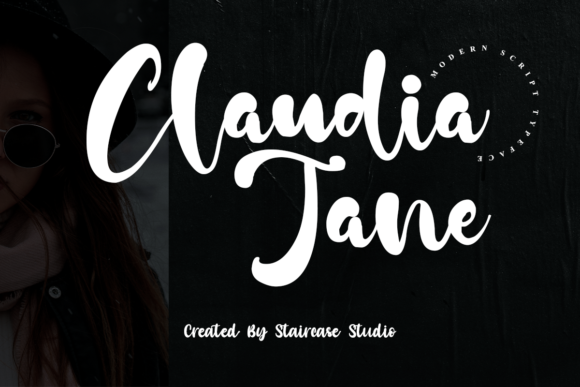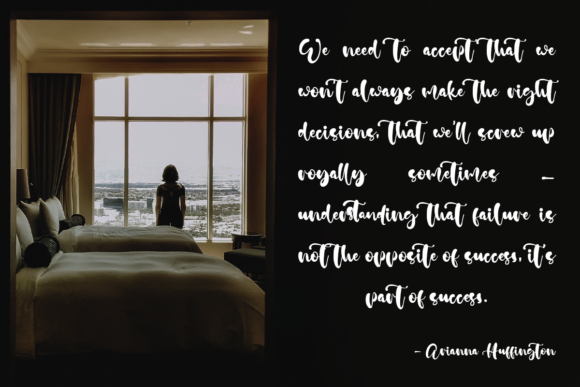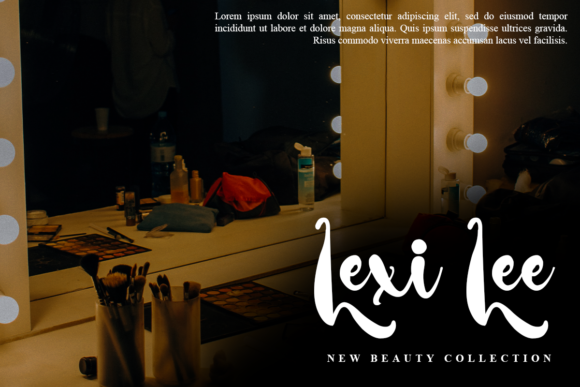
About Claudia Jane Font
Claudia Jane is a modern and chic handwritten font. It looks lovely on a variety of designs requiring a trendy touch. Amaze your readers with Claudia Jane.